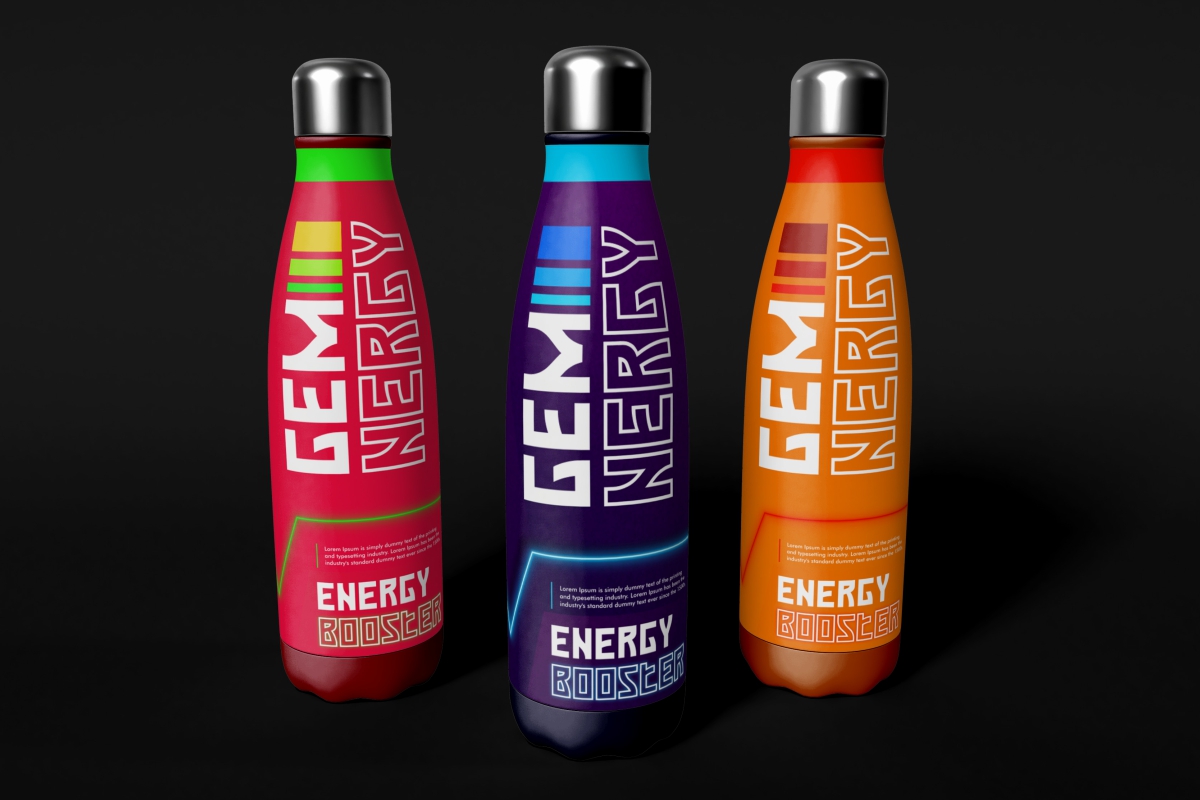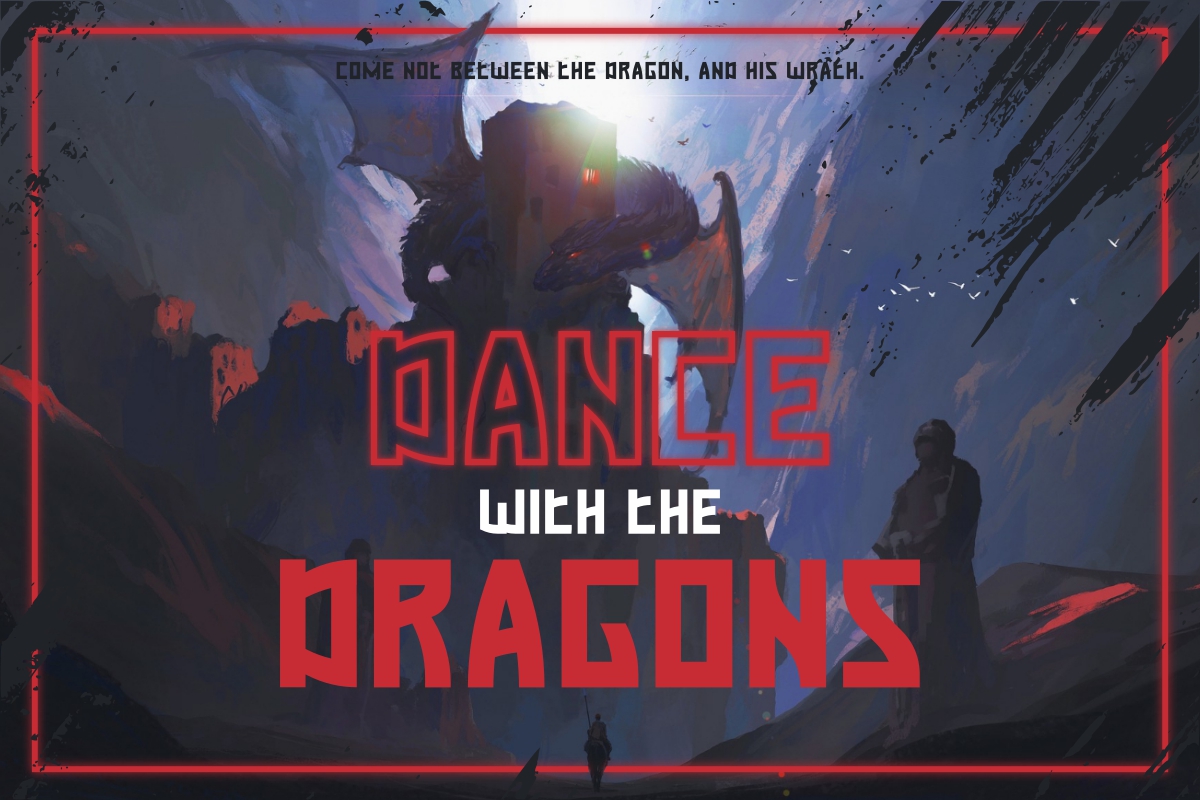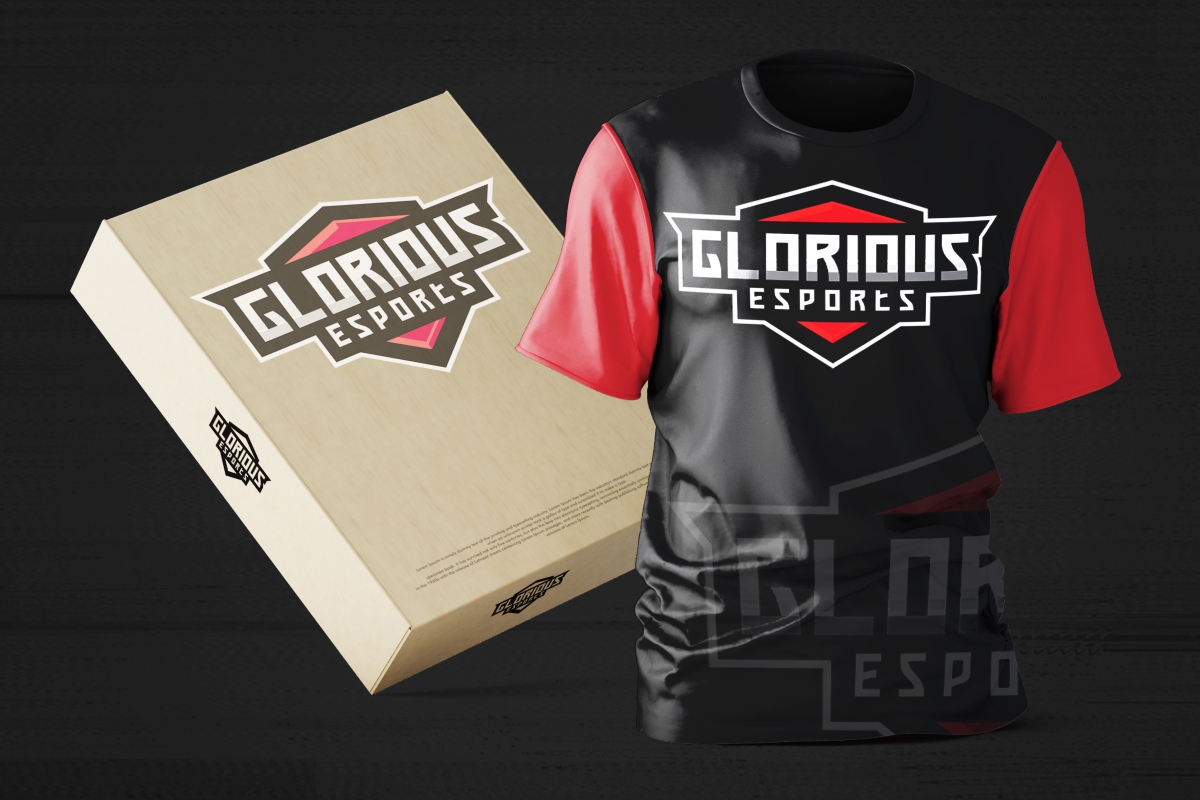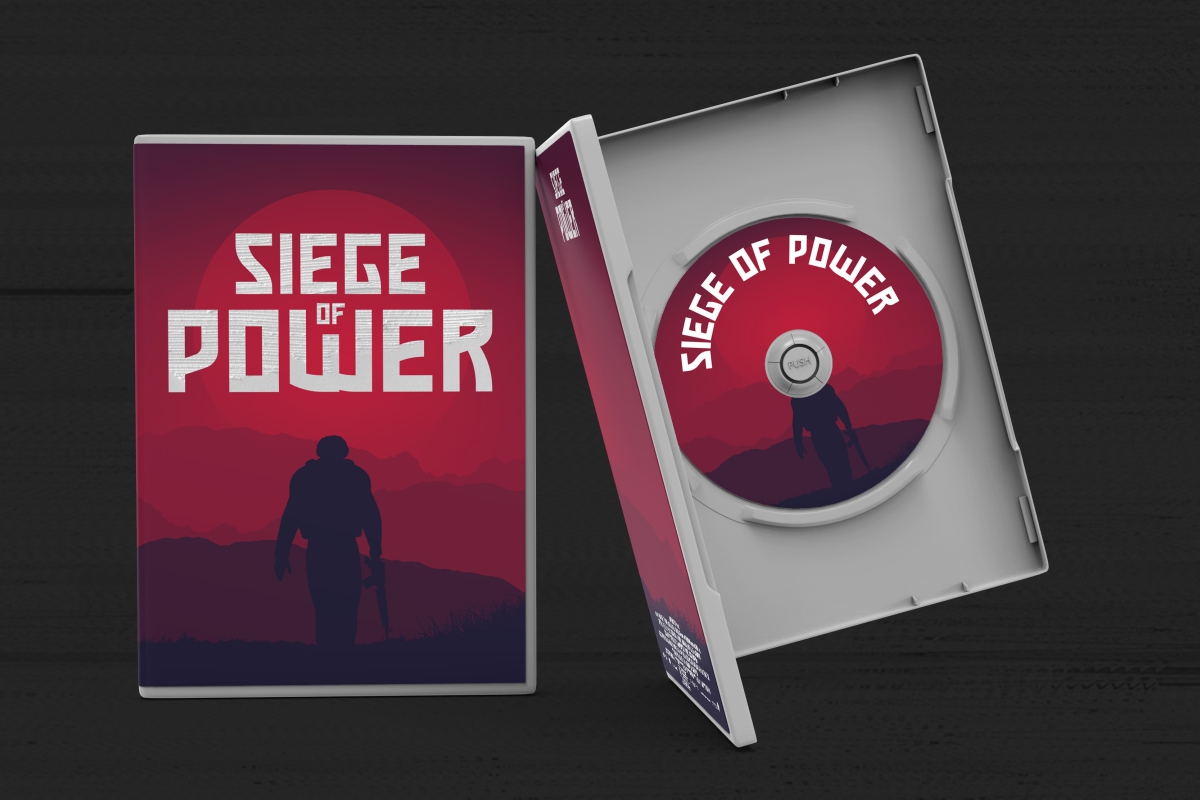
Gameking Display Font
This font will be great for any projects including : flyer, logo branding, products packaging, signage, stationery, etc. This font comes with three different font styles: Regular, Italic and Outline fresh and exclusive which makes it stand out.